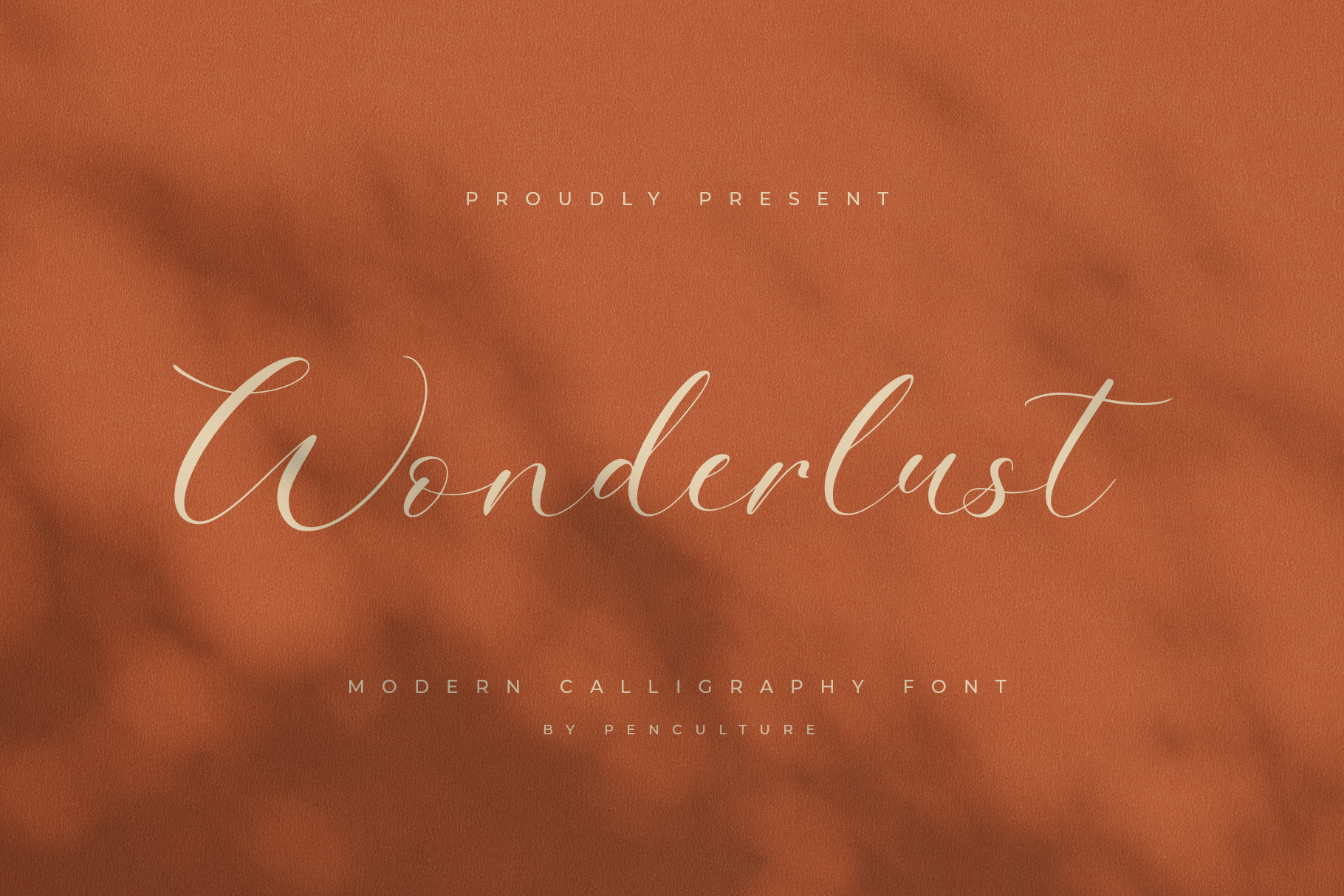
- Wonderlust – A Modern Calligraphy Font
Wonderlust is a modern calligraphy font designed to bring elegance and charm to your projects. Featuring unique ligatures, Wonderlust ensures your text flows beautifully and stands out with sophistication. Perfect for crafting stunning invitations, memorable logos, and stylish branding materials, this font offers a touch of refined artistry. Each character is carefully designed to provide consistency and high-quality across all your creations. Elevate your designs with the effortless elegance of Wonderlust, making every word a visual delight.